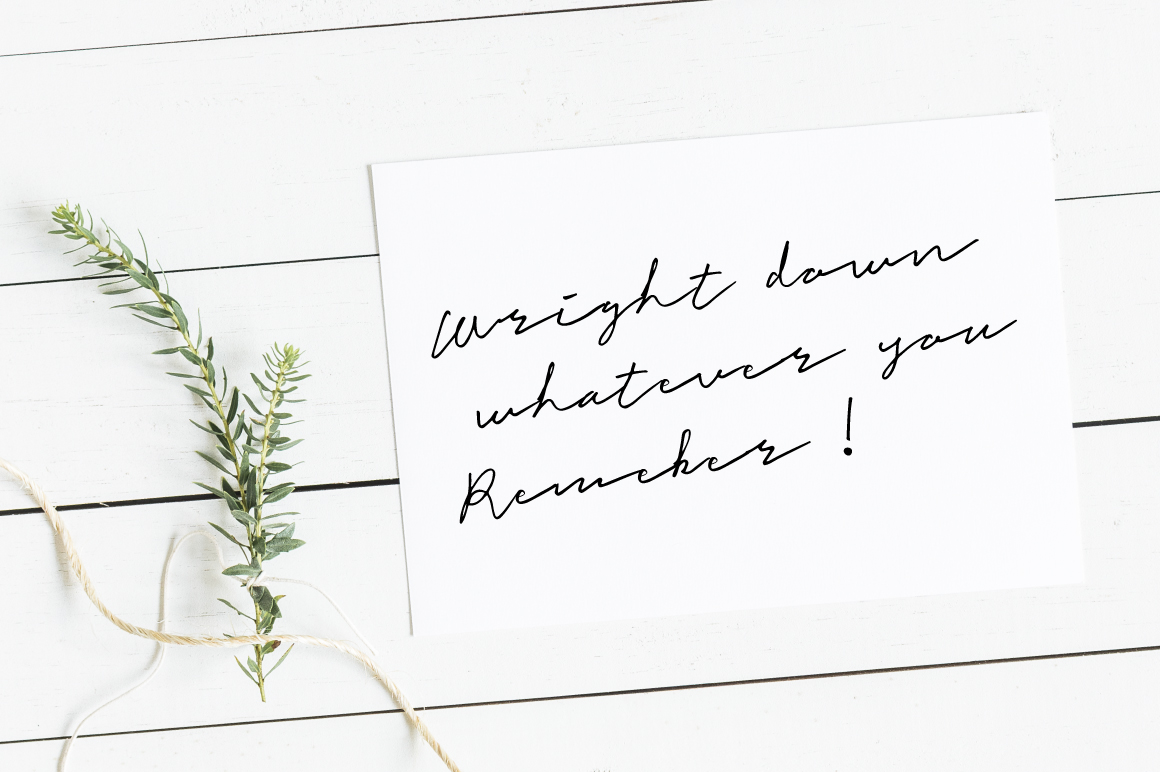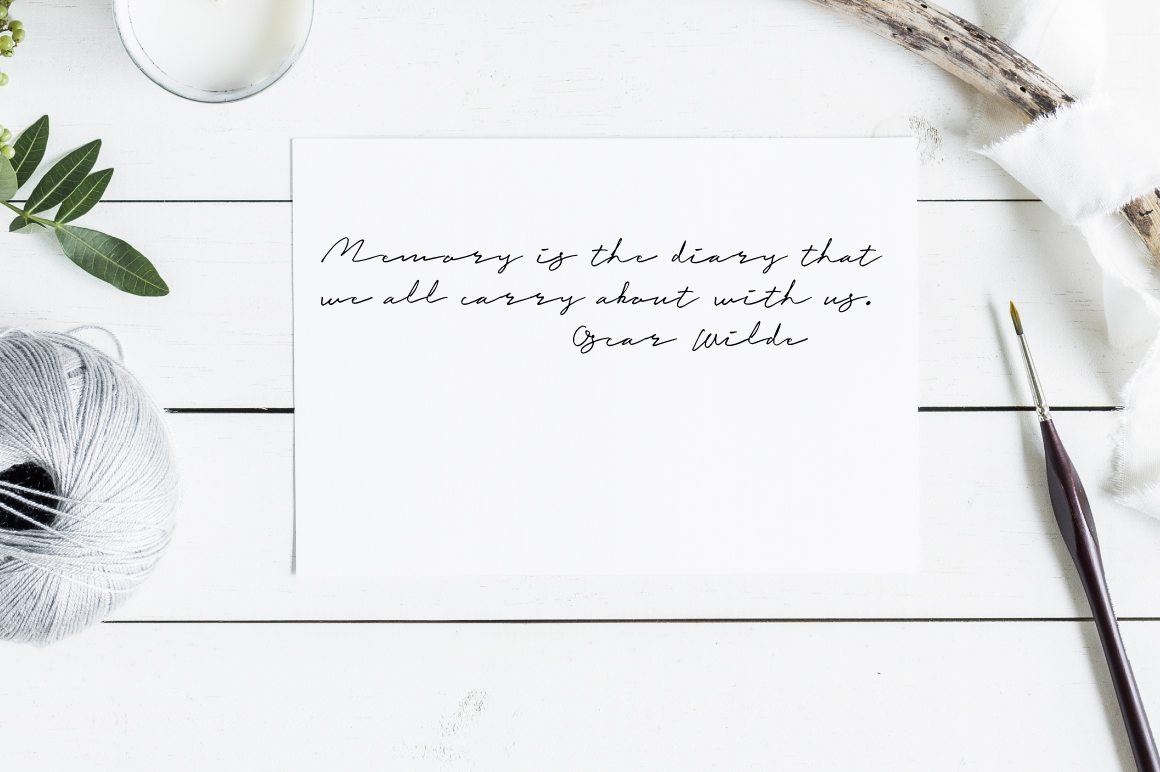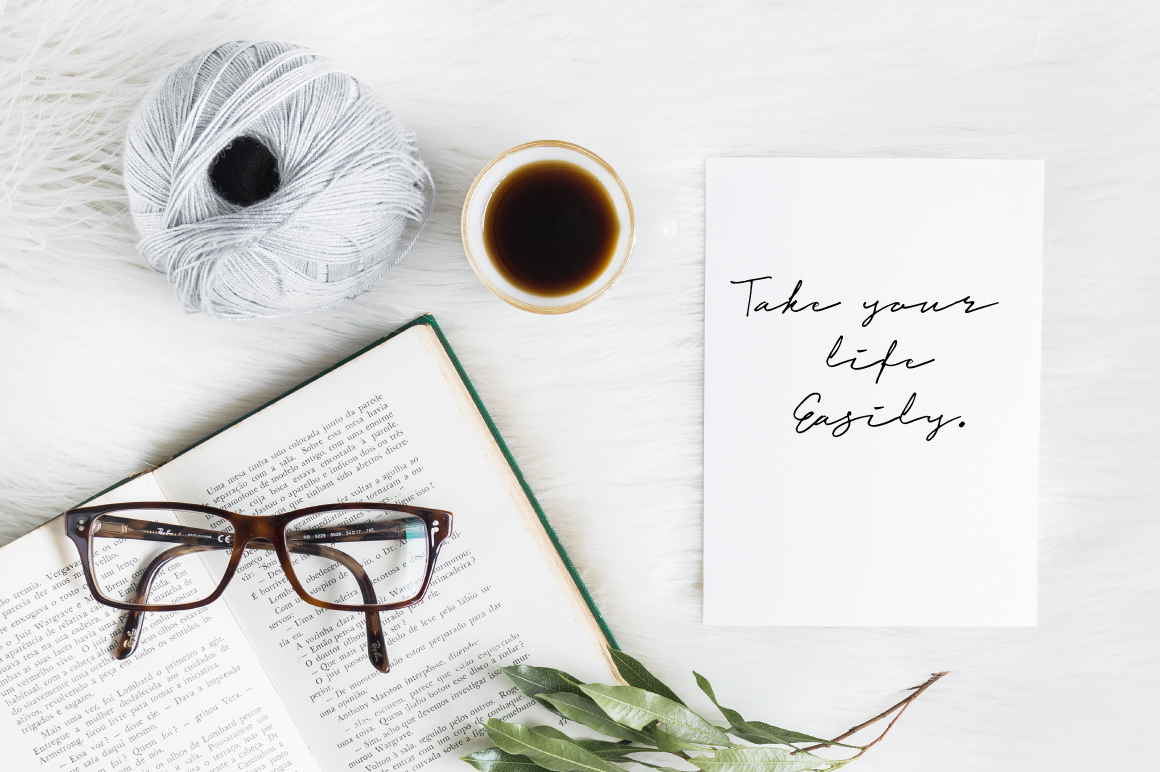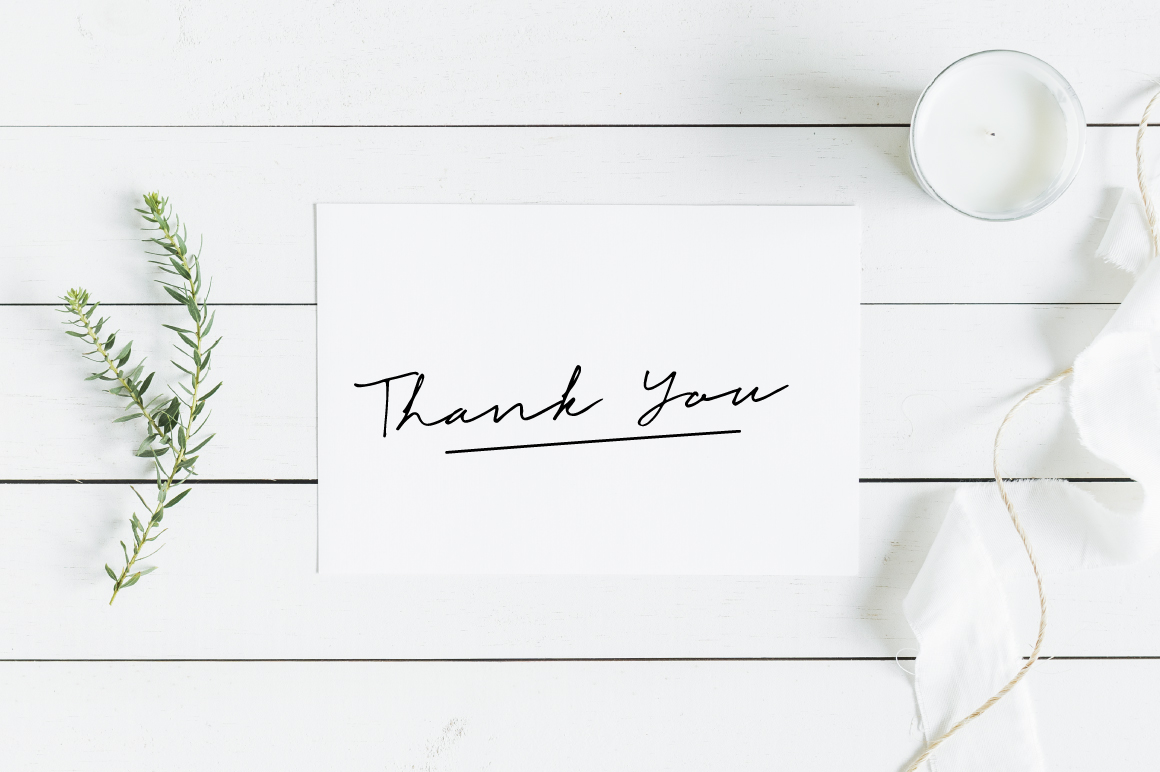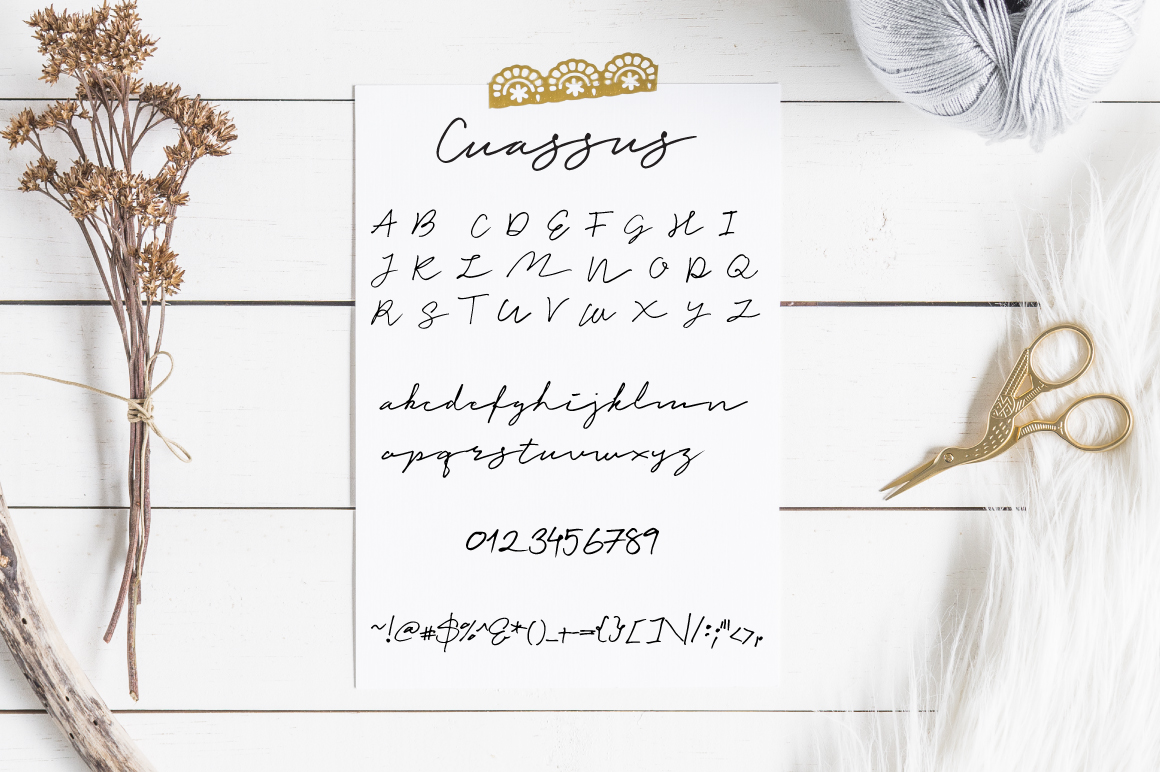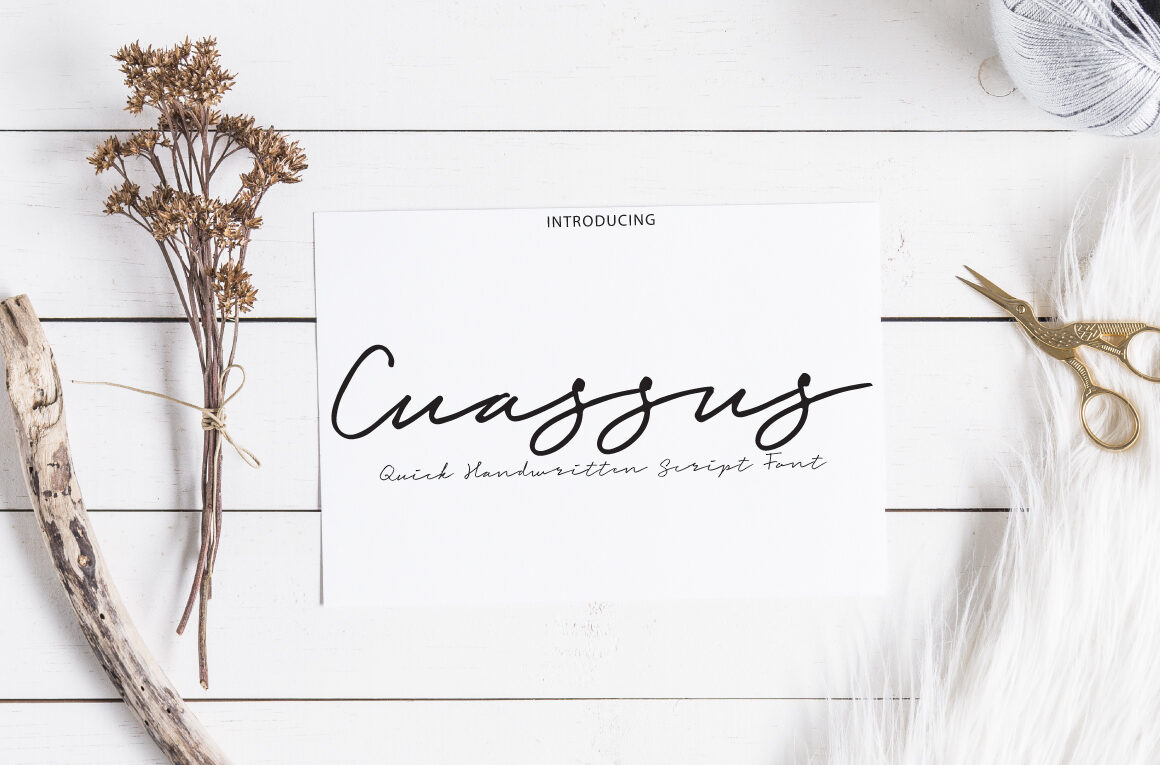
Introducing Cuassus Font: Adding Personality to Your Designs
In the world of design, typography plays a crucial role in conveying the tone and personality of a project. Whether you’re creating invitations, greeting cards, or social media graphics, the right font can make all the difference. That’s where Cuassus Font comes in – a unique and charming typeface designed to add a personal touch to your designs.
What is Cuassus Font?
Cuassus Font is a carefully crafted font that exudes warmth and friendliness. Its distinctive style makes it perfect for projects that require a bit of personality, such as:
- Invitations: Weddings, baby showers, birthday parties, and other special occasions.
- Greeting cards: Christmas, Easter, Halloween, and other holidays.
- Social media graphics: Add a personal touch to your posts and stories.
- DIY projects: Scrapbooking, card making, and other paper crafting endeavors.
Key Features of Cuassus Font
So, what sets Cuassus Font apart from other typefaces? Here are some of its key features:
- Unique character set: Cuassus Font boasts a distinctive character set that adds a touch of whimsy to your designs.
- Hand-drawn feel: The font’s hand-drawn style gives it a warm, organic feel that’s perfect for projects that require a personal touch.
- Easy to read: Despite its unique style, Cuassus Font remains easy to read, making it suitable for both digital and print projects.
- Versatile: Cuassus Font works well in a variety of design contexts, from formal to informal.
How to Use Cuassus Font in Your Designs
Using Cuassus Font in your designs is easy. Here are some tips to get you started:
- Pair it with other fonts: Combine Cuassus Font with other fonts to create interesting contrast and visual hierarchy.
- Experiment with colors: Cuassus Font looks great in a variety of colors, from bright and bold to soft and pastel.
- Play with textures: Add texture to your designs by layering Cuassus Font over images or other design elements.
Benefits of Using Cuassus Font
So, why should you choose Cuassus Font for your designs? Here are some benefits:
- Adds personality: Cuassus Font helps you create designs that are unique and reflective of your brand or personal style.
- Time-saving: With Cuassus Font, you can create professional-looking designs in no time.
| Font Name | Cuassus Font |
In conclusion, Cuassus Font is a versatile and charming typeface that’s perfect for designers and crafters looking to add a personal touch to their projects. With its unique character set, hand-drawn feel, and ease of use, Cuassus Font is sure to become a favorite in your design toolkit. So why wait? Download Cuassus Font today and start creating designs that stand out from the crowd!